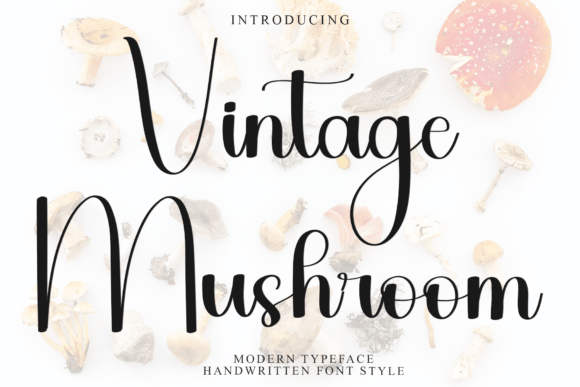
Vintage Mushroom Font: A Festive and Merry Typeface for Your Holiday Designs
The holiday season is upon us, and with it comes the need for festive and merry designs that capture the spirit of the season. If you’re looking for a typeface that embodies the whimsy and enchantment of the holidays, look no further than the Vintage Mushroom Font. This decorative font is perfect for adding a touch of nostalgia and cheer to your designs, whether you’re creating greeting cards, gift tags, or holiday-themed projects.
What is Vintage Mushroom Font?
Vintage Mushroom Font is a unique and festive typeface that is designed to evoke the magic of the holiday season. With its whimsical flair and decorative elements, this font is sure to add a touch of enchantment to your designs. The font features a range of glyphs and ligatures that can be easily accessed thanks to its PUA encoding.
PUA (Private Use Area) encoding is a system that allows designers to access a wide range of glyphs and ligatures in a font, making it easier to create unique and visually appealing designs. With Vintage Mushroom Font, you can easily access all of the amazing glyphs and ligatures, making it simple to add a touch of whimsy to your designs.
Features of Vintage Mushroom Font
Vintage Mushroom Font is a feature-rich typeface that offers a range of benefits for designers. Some of the key features of this font include:
- Decorative elements: The font features a range of decorative elements, including swashes, flourishes, and ligatures, that can be used to add a touch of whimsy to your designs.
- PUA encoding: The font is PUA encoded, making it easy to access all of the amazing glyphs and ligatures.
- Festive and merry: The font is designed to capture the spirit of the holiday season, making it perfect for creating festive and merry designs.
- Whimsical flair: The font features a whimsical flair that adds a touch of enchantment to your designs.
Uses for Vintage Mushroom Font
Vintage Mushroom Font is a versatile typeface that can be used for a range of design projects. Some of the most popular uses for this font include:
- Greeting cards: The font is perfect for creating festive and merry greeting cards for the holiday season.
- Gift tags: The font can be used to create decorative gift tags that add a touch of whimsy to your gifts.
- Holiday-themed projects: The font is ideal for creating holiday-themed projects, such as Christmas decorations, Halloween designs, and Thanksgiving projects.
- Social media graphics: The font can be used to create festive and merry social media graphics that capture the spirit of the holiday season.
Tips for Using Vintage Mushroom Font
Here are some tips for getting the most out of Vintage Mushroom Font:
- Experiment with different sizes: The font looks great in a range of sizes, from small and delicate to large and bold.
- Combine with other fonts: The font can be combined with other fonts to create a unique and visually appealing design.
- Use the glyphs and ligatures: Don’t be afraid to experiment with the glyphs and ligatures in the font to add a touch of whimsy to your designs.
- Keep it simple: Remember, sometimes less is more. Keep your design simple and elegant to let the font shine.
- What is PUA encoding? PUA encoding is a system that allows designers to access a wide range of glyphs and ligatures in a font.
- Is Vintage Mushroom Font easy to use? Yes, Vintage Mushroom Font is easy to use and can be accessed easily thanks to its PUA encoding.
- Can I combine Vintage Mushroom Font with other fonts? Yes, Vintage Mushroom Font can be combined with other fonts to create a unique and visually appealing design.